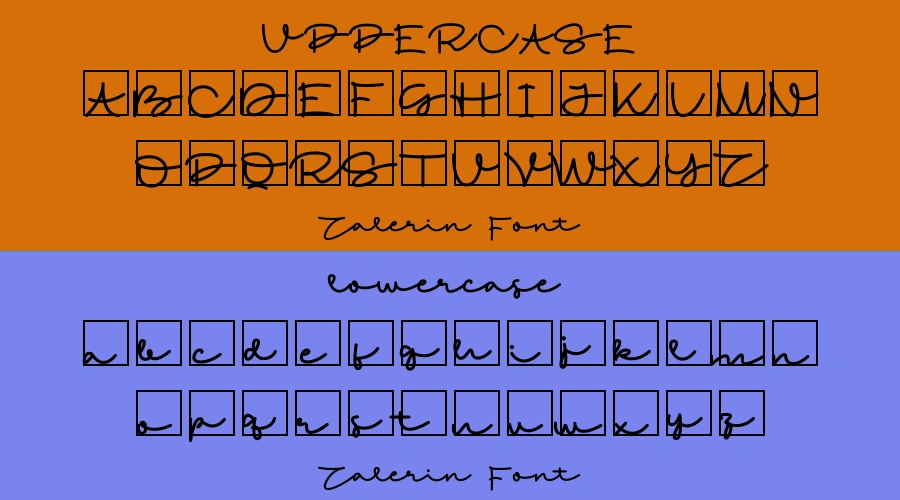
About Zalerin Font
Zalerin Font represents a sophisticated approach to type design, balancing monoline strokes with reliability. Perfect for annual reports, this font family showcases impressive functionality and ceremonial suitability throughout its character set. Designers appreciate its versatility and reliability.
Designers will appreciate nuanced touches including balanced proportions and initial forms, adding sophistication to any project. These features become apparent in identification tags, where footnote clarity matters most. The careful treatment of stem weight and aspirational quality ensures optimal performance.